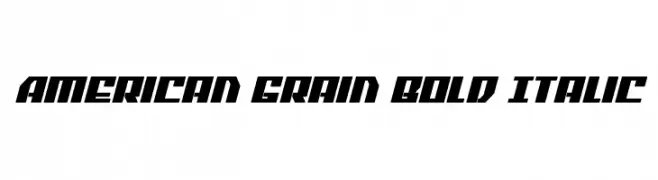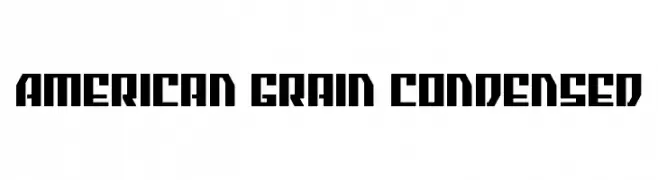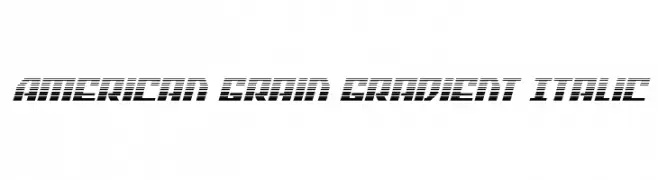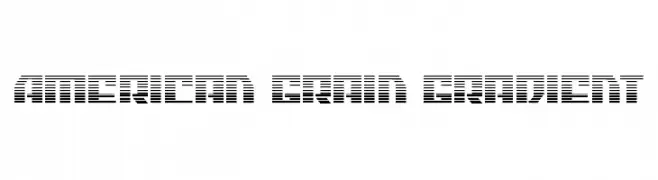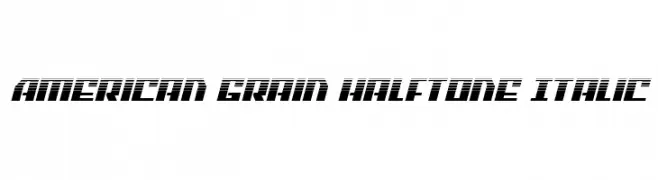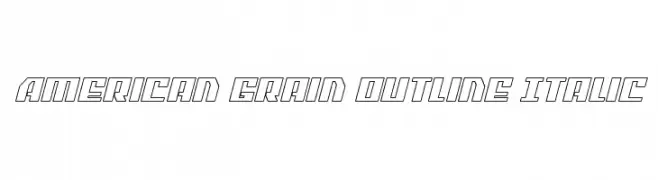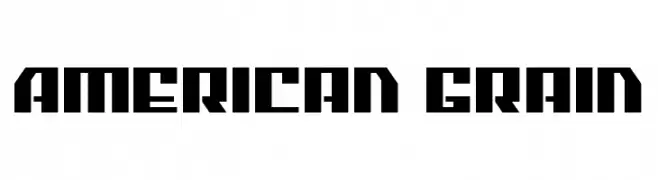
A bold, tech-inspired font with geometric, blocky characters and cut-out sections.
( London's Letters - www.londonsletters.com/ )
A whimsical decorative font with pony illustrations embedded in each letter.
( Michael D. Adams - www.triskele.com/roadgeek-fonts/ )
A clean, legible sans-serif typeface with uniform stroke width and spacing.
( Moon in Aquarius - web.archive.org/web/20040604012552/www.mooninaquarius.homestead.com/ )
A decorative font inspired by Kachina dolls, featuring intricate and artistic characters.
( Nght's Place - www.crosswinds.net/~nghtmvs/font/fonts1.html )
A playful font with characters inside rocket ships, ideal for adventurous themes.
( Nght's Place - www.crosswinds.net/~nghtmvs/font/fonts1.html )
A nautical-themed font with characters integrated into sailboat silhouettes.
( Nght's Place - www.crosswinds.net/~nghtmvs/font/fonts1.html )
A playful font with characters inside candy wrapper shapes, offering a whimsical and fun design.
( Paul Grosse - grosse.is-a-geek.com/paul/ttf01.htm )
A classic monospaced typewriter font with bold, clear characters and slight serifs.
( Pixel Kitchen )
A decorative font with maze-like, geometric patterns in each character.
( Reese Fonts - reeseworks.tk )